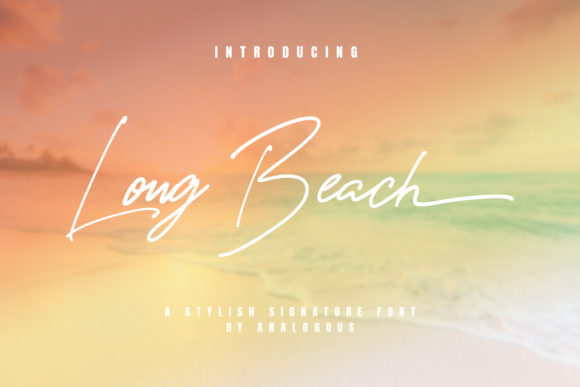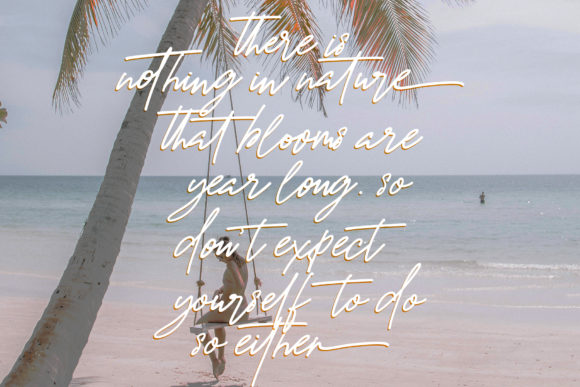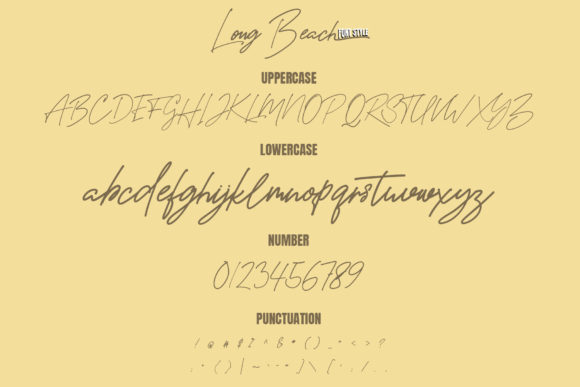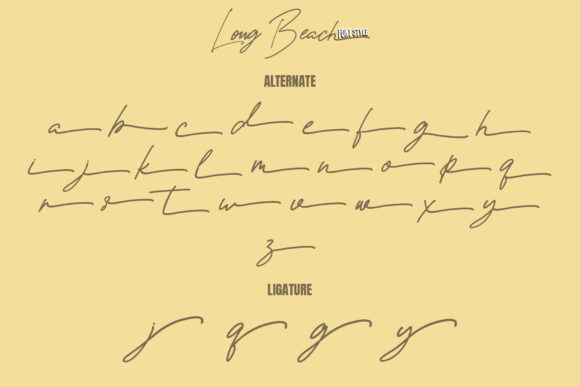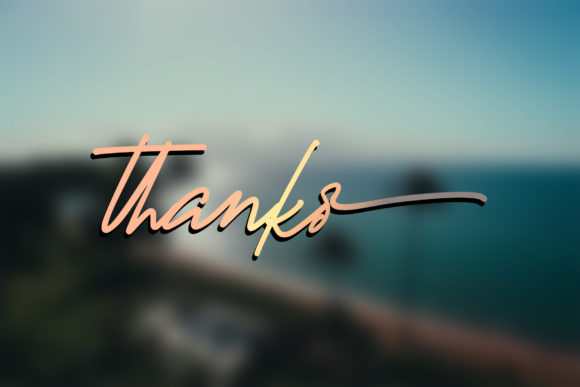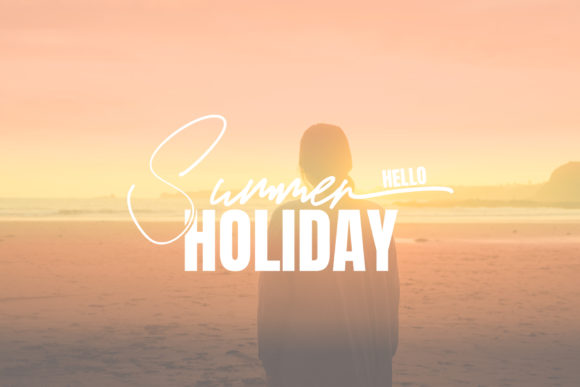
Long Beach Font
About Long Beach Font
Long Beach is a stylish signature font. It features an incredibly classic style, while still keeping a friendly feel. It will elevate a wide range of design projects to the highest level, be it branding, headings, wedding designs, invitations, signatures, logos, labels, and much more!